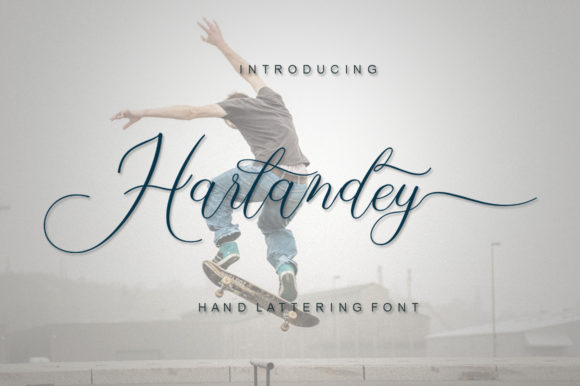
Introducing Harlandey Font: The Ultimate Bold Script Font for Designers and Crafters
Are you tired of using the same old fonts in your designs? Look no further than Harlandey Font, a stunning and bold script font that’s sure to take your creative projects to the next level. With its unique blend of classic elegance and modern flair, Harlandey Font is the perfect choice for designers and crafters looking to add a touch of sophistication and personality to their work.
A Font Like No Other: Harlandey’s Unique Features
So, what sets Harlandey Font apart from other fonts on the market? For starters, it contains a vast variety of alternative characters to choose from, giving you the flexibility to customize your text to suit your style. Whether you’re looking for a classic, elegant look or a more modern and edgy feel, Harlandey Font has got you covered.
But that’s not all. Harlandey Font also features natural binders that effortlessly add an authentic twist to your text. These binders allow you to create beautiful, flowing script that looks like it was written by hand, giving your designs a personal touch that’s sure to stand out.
The Perfect Choice for Designers and Crafters
Harlandey Font is the perfect choice for designers and crafters who want to add a touch of elegance and sophistication to their work. Whether you’re creating a logo, a poster, or a digital graphic, Harlandey Font is sure to make your design pop. Its bold and confident lines make it perfect for headlines, titles, and other display text, while its elegant and refined features make it suitable for body text and other written content.
But Harlandey Font isn’t just limited to digital designs. Its versatility and flexibility make it perfect for crafters who want to add a personal touch to their handmade projects. Whether you’re creating handmade cards, scrapbook pages, or other paper crafts, Harlandey Font is sure to add a touch of elegance and sophistication to your work.
Tips and Tricks for Using Harlandey Font
So, how can you get the most out of Harlandey Font? Here are a few tips and tricks to keep in mind:
• Experiment with different character combinations to find the perfect look for your design.
• Use the natural binders to create beautiful, flowing script that adds a personal touch to your text.
• Pair Harlandey Font with other fonts to create a unique and eye-catching design.
• Don’t be afraid to get creative and try new things – Harlandey Font is a versatile and flexible font that’s perfect for experimenting with different styles and techniques.
Font Name Harlandey Font
Author IM Studio
In conclusion, Harlandey Font is a stunning and bold script font that’s perfect for designers and crafters looking to add a touch of elegance and sophistication to their work. With its unique blend of classic elegance and modern flair, Harlandey Font is sure to take your creative projects to the next level. Whether you’re creating digital designs or handmade crafts, Harlandey Font is the perfect choice for anyone looking to add a personal touch to their work.